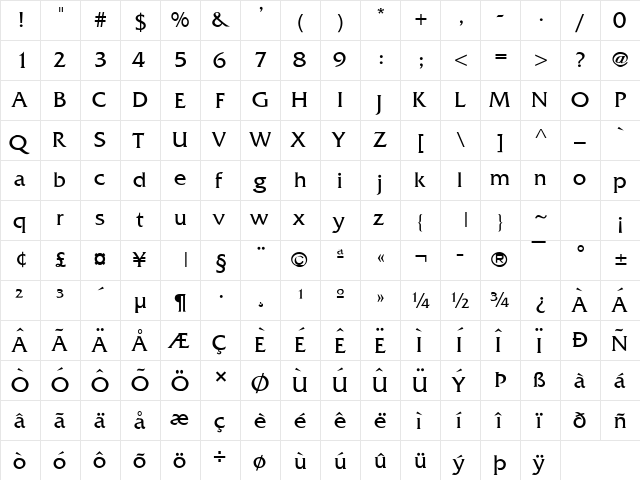
Franco Normal
Design Context for Franco Typeface
Franco offers clean, dependable letterforms without strong stylistic allegiance, making it a practical choice for designers who need flexibility.
Pro Tip: Pair Franco with a font of contrasting weight or personality to build a more expressive typographic hierarchy.